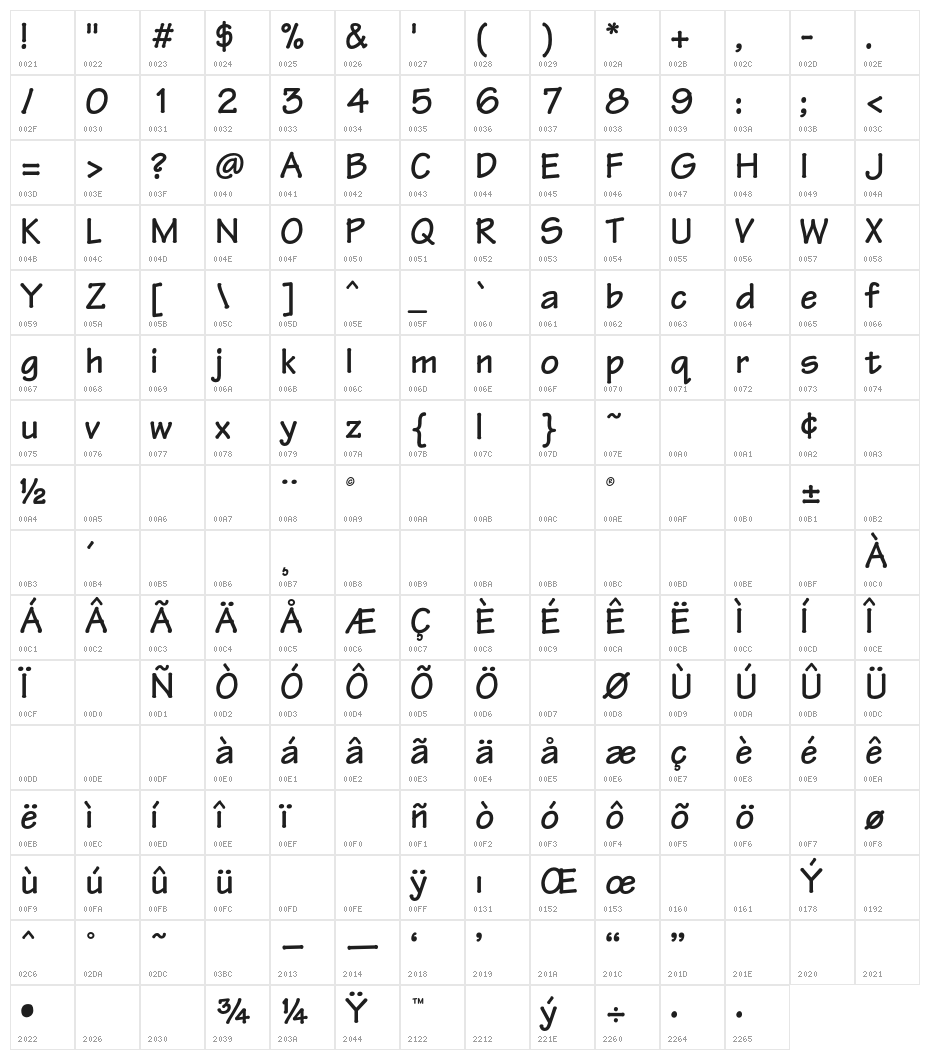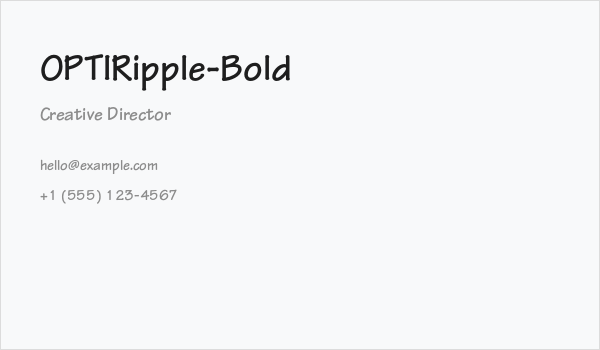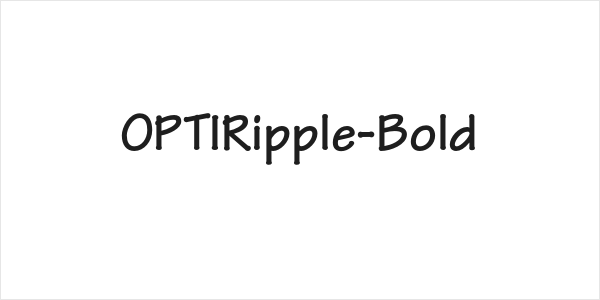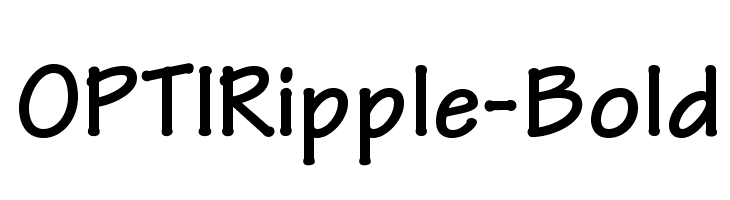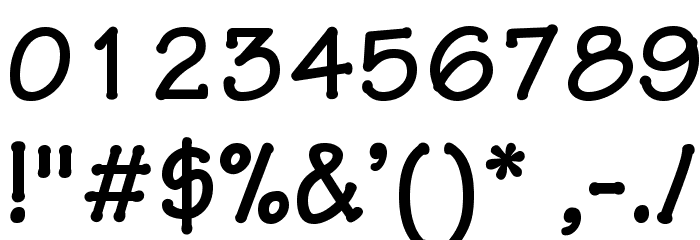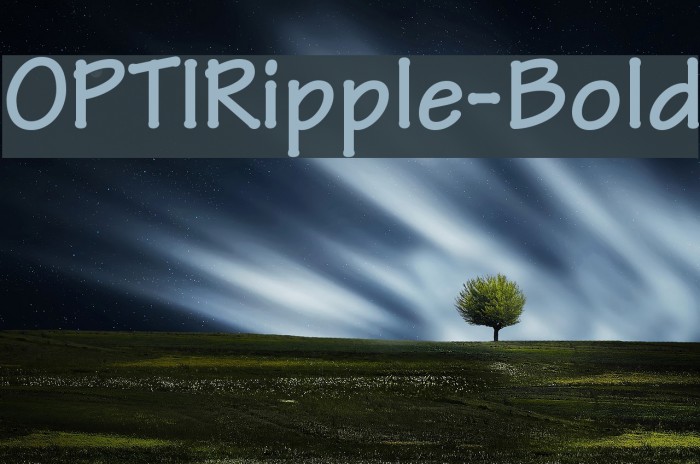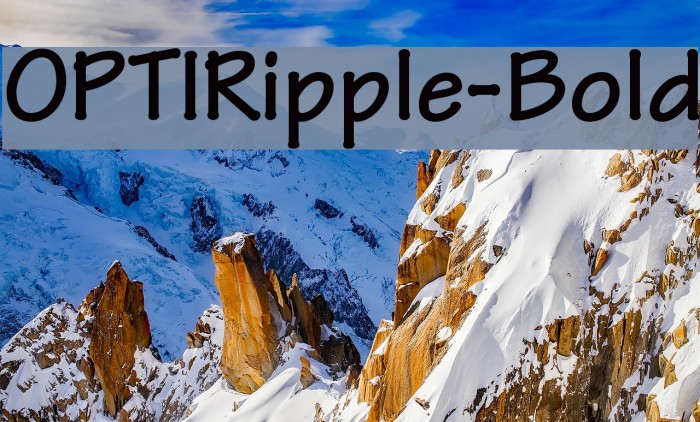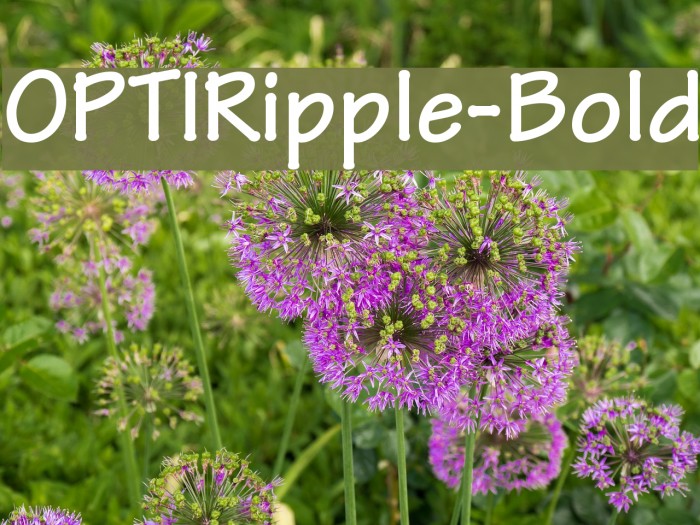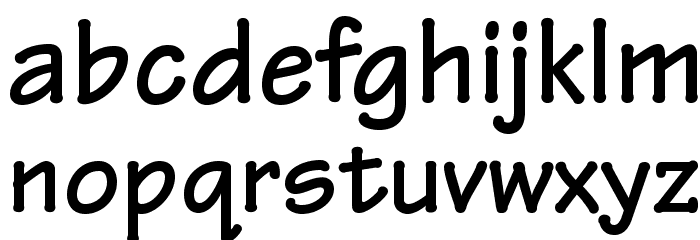
OPTIRipple-Bold Font
OPTIRipple-Bold Description
This font features a playful and rounded style, with smooth curves and a friendly appearance. The characters are bold and have a consistent thickness, giving them a strong presence on the page. The uppercase letters are slightly taller than the lowercase, maintaining a uniform width throughout. The numbers and special characters are designed to match the overall aesthetic, ensuring a cohesive look. Its rounded edges and bold strokes make it suitable for projects that require a fun and approachable feel.
| Proposed Projects | Ideal for children's books, playful branding, casual invitations, and educational materials. |